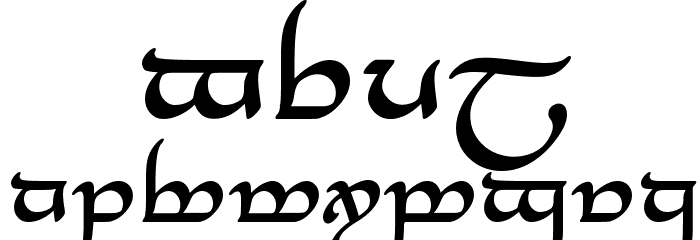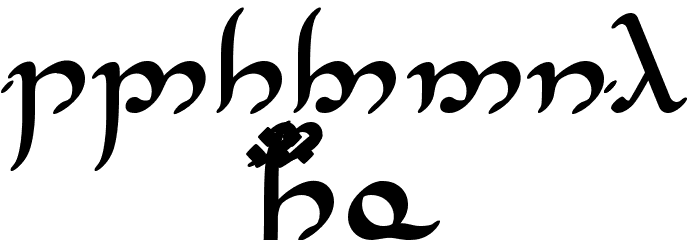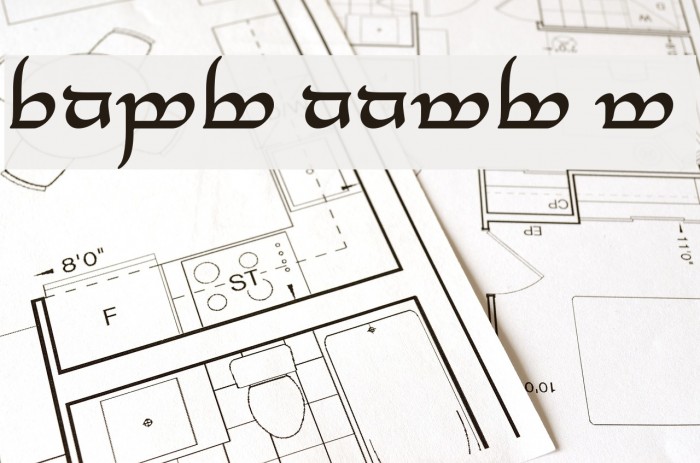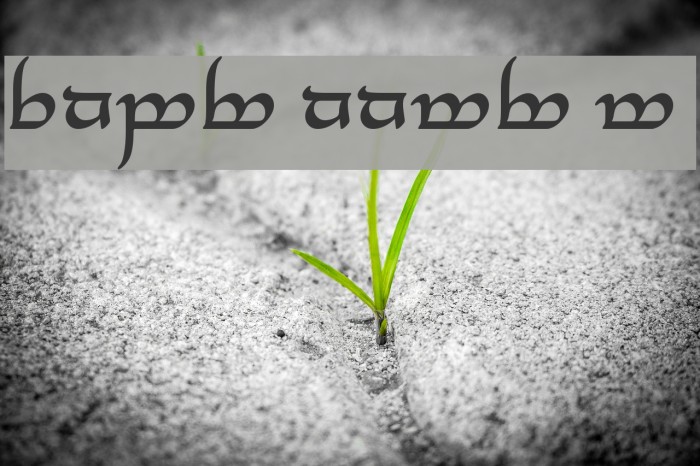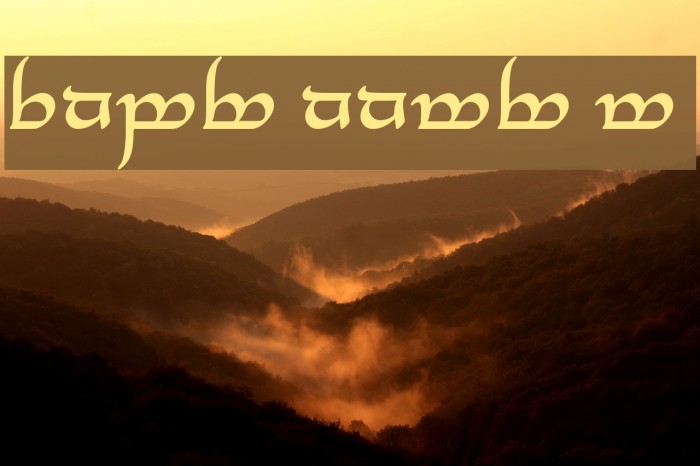
Tengwar Annatar Alt Bold Font
This font is a decorative script inspired by the Tengwar script, known for its elegant and flowing characters. The design features intricate curves and unique letterforms that evoke a sense of fantasy and mysticism. The bold weight enhances its visual impact, making it suitable for titles and decorative purposes. The characters are well-spaced, providing a balanced and readable appearance despite their complex shapes. The font's style is reminiscent of ancient scripts, adding a touch of historical and cultural depth to any project.
A bold, decorative script inspired by the Tengwar script with intricate and flowing characters.
- Proposed Projects: Ideal for fantasy-themed projects, book covers, posters, and any design requiring a mystical or ancient touch.